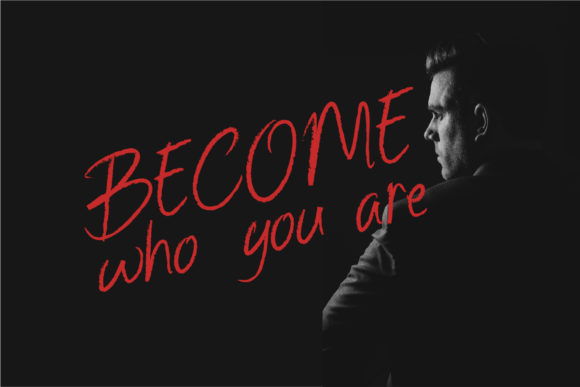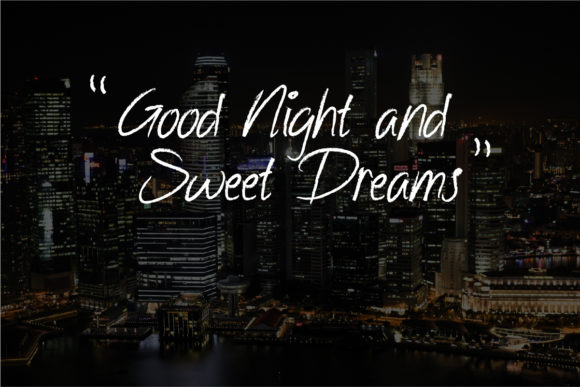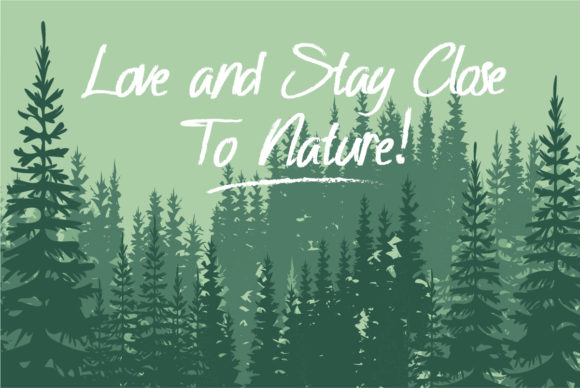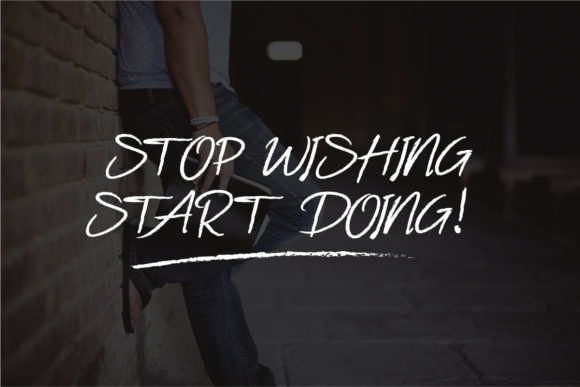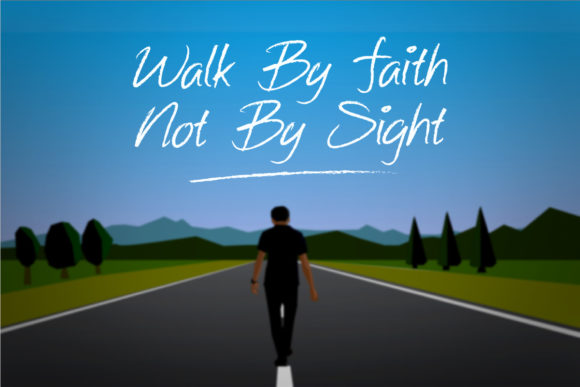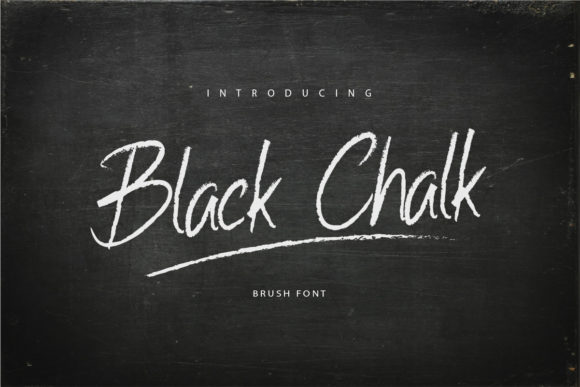
Elevate Your Designs with the Authentic Look of Black Chalk Font
Are you looking for a font that adds a touch of sincerity and seriousness to your design projects? Look no further than the Black Chalk Font, a textured brush font that captures the essence of traditional chalk writing. Inspired by the classic look of chalk, this unique script font is perfect for designers and crafters seeking to infuse their work with a distinctive, hand-crafted feel.
The Inspiration Behind Black Chalk Font
The Black Chalk Font is designed to mimic the appearance of chalk writing, with its characteristic texture and imperfections. This font is not just a digital representation; it’s an homage to the tactile nature of chalk on a surface. The texture, the slight inconsistencies, and the rustic charm of chalk writing are all encapsulated in this font, making it a standout choice for projects that require a personal touch.
Key Features of Black Chalk Font
- Textured Brush Style: The font boasts a textured brush style that gives it a unique, organic look, reminiscent of hand-drawn chalk letters.
- Unique Script: Each letter is crafted to provide a sense of movement and fluidity, while still maintaining readability and elegance.
- Serious and Sincere Feel: The Black Chalk Font adds a layer of sincerity and seriousness to any design, making it perfect for projects that require a more personal or emotional connection.
- Versatility: From branding and advertising to packaging and personal projects, this font can be used across a wide range of design applications.
Who Can Benefit from Using Black Chalk Font?
The Black Chalk Font is a versatile tool that can benefit a wide range of designers and crafters, including:
- Graphic Designers: Looking for a unique font to add character to their designs.
- Branding Specialists: Seeking to create a memorable and impactful brand identity.
- Packaging Designers: Needing a font that stands out on product packaging.
- Crafters and Makers: Wanting to add a personal touch to their handmade products or DIY projects.
Tips for Using Black Chalk Font Effectively
To get the most out of the Black Chalk Font, consider the following tips:
- Pair with Solids: Combine the Black Chalk Font with solid colors or simple backgrounds to make the text stand out.
- Experiment with Sizes: Play with different font sizes to create visual hierarchy and emphasis.
- Add Texture: Enhance the textured look of the font by adding subtle backgrounds or overlays that complement its chalk-like appearance.
The Black Chalk Font is more than just a font; it’s a design element that can transform your projects with its unique, chalk-inspired texture and sincere feel. Whether you’re a professional designer or a crafter looking to add a personal touch to your work, this font offers a versatile and impactful solution. With its textured brush style, unique script, and the ability to convey a serious and sincere message, the Black Chalk Font is sure to elevate your designs to the next level.
So, why settle for ordinary fonts when you can add an extraordinary touch to your designs? Explore the creative possibilities with the Black Chalk Font today and discover how it can make your projects stand out with its authentic, chalk-inspired charm.